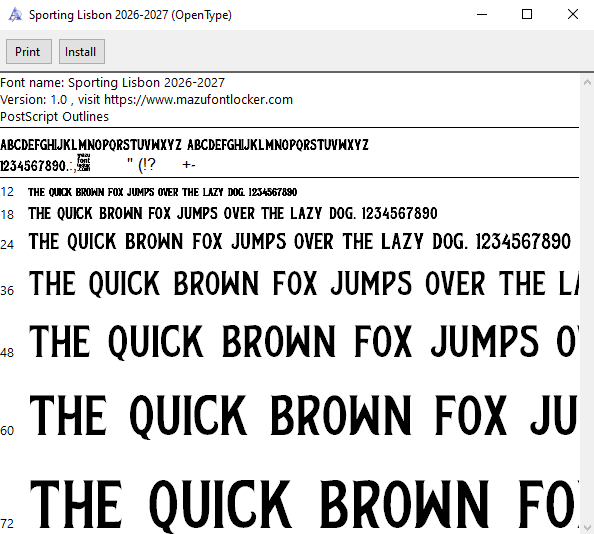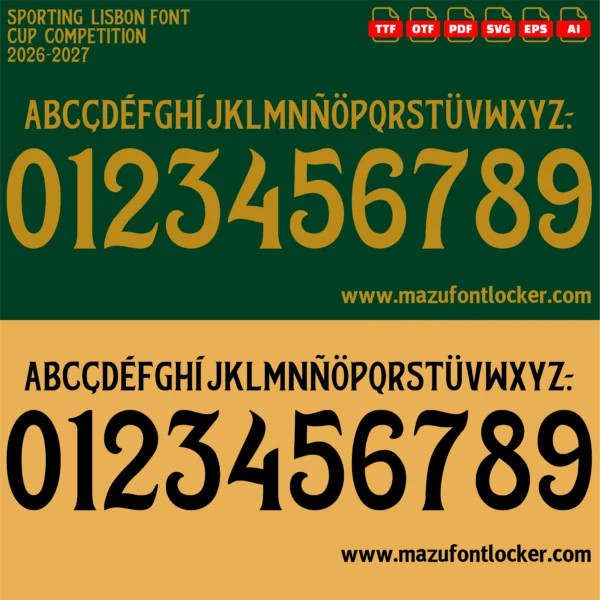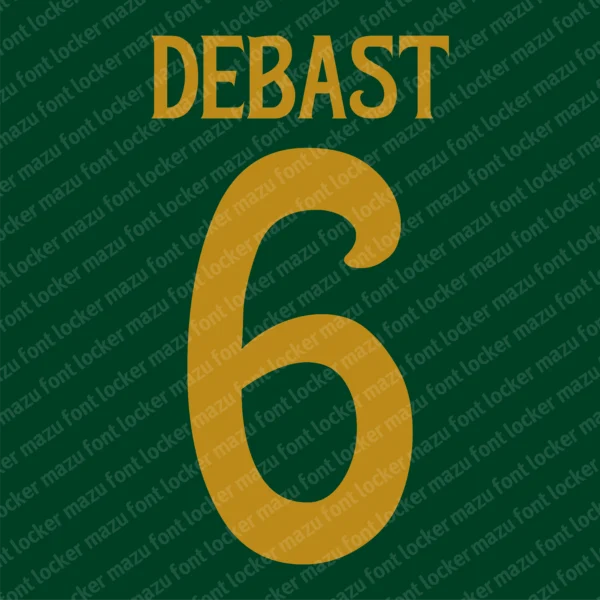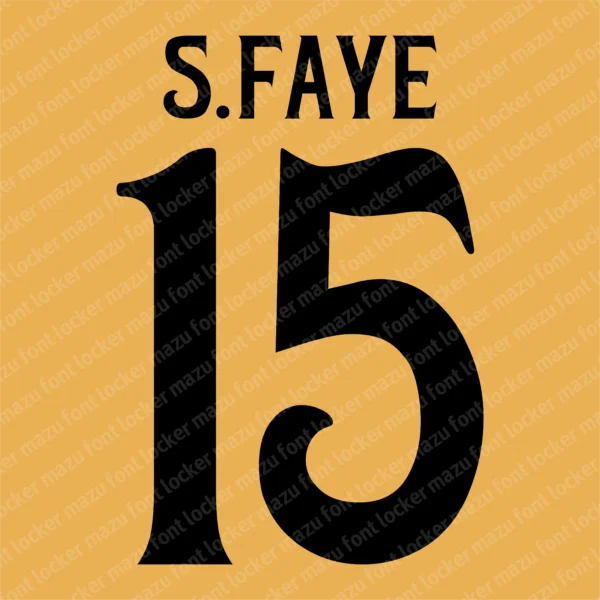
Sporting Lisbon 2026-2027 Font Vector – Magnificent Lions of Alvalade Masterpiece
This font captures the commanding, emerald-edged, lightning-strike, and precision-engineered lettering that perfectly embodies Sporting Lisbon’s iconic club identity, proud Lisbon heritage, legendary green-and-white tradition, lion-hearted spirit, and unstoppable Portuguese football power — delivering unmatched authenticity, premium quality, explosive energy, and elite Primeira Liga & UEFA competition intensity for professional jersey mockups, dynamic football graphics, premium sports branding, passionate fan creations, and high-end design projects.
Sporting Lisbon 2026-2027 Font Vector – Stunning Leões Green & White Typeface
The Sporting Lisbon 2026-2027 Font Vector is a premium typeface that accurately recreates the distinctive match lettering associated with Sporting Clube de Portugal during the 2026-2027 football season. This high-quality vector font kit captures the bold, clean, and instantly recognizable typography that perfectly complements the club’s iconic green and white identity.
Why Choose Sporting Lisbon 2026-2027 Font Vector
This font stands out thanks to its precise vector construction and authentic club-inspired styling. Every letter and numeral has been meticulously recreated to match the distinctive football lettering aesthetic associated with Sporting CP during the 2026-2027 season and its domestic and European campaigns.
Whether you’re producing professional football kit templates, custom jersey concepts, or eye-catching football content, the Sporting Lisbon 2026-2027 Font Vector delivers a genuine match-ready appearance inspired by the identity of the Leões.
The lettering featured in the Sporting Lisbon 2026-2027 Font Vector combines clean geometric lines with bold modern proportions. The result is a premium and highly readable typeface that reflects Sporting CP’s proud football heritage, iconic green and white colors, Lisbon identity, and passionate global fanbase.
• Complete uppercase A–Z alphabet and numbers 0–9 in authentic Sporting Lisbon 2026-2027 inspired style
Wearing their iconic green and white colors, Sporting CP continue to represent a proud football tradition built on youth development, technical quality, and a passionate connection with supporters in Lisbon and around the world.
The Sporting Lisbon 2026-2027 Font Vector is inspired by the distinctive football typography and visual identity associated with this campaign, making it an excellent choice for designers creating custom jersey concepts, football posters, squad graphics, matchday artwork, and fan-made projects.
The Sporting Lisbon 2026-2027 Font Vector is an independently designed typeface package inspired by the official shirt lettering and visual identity associated with Sporting Clube de Portugal during the 2026-2027 football season. It has been carefully recreated for football enthusiasts, graphic designers, collectors, jersey creators, and fans producing custom football concepts, digital artwork, and fan-made projects.